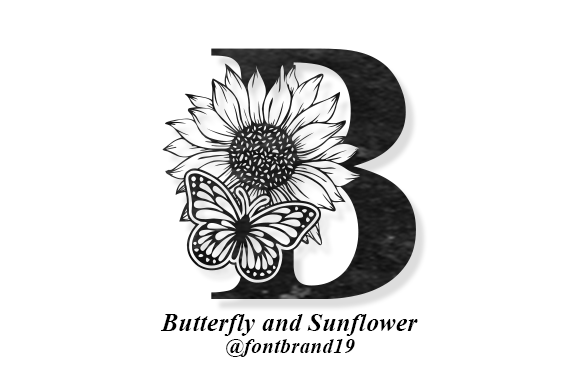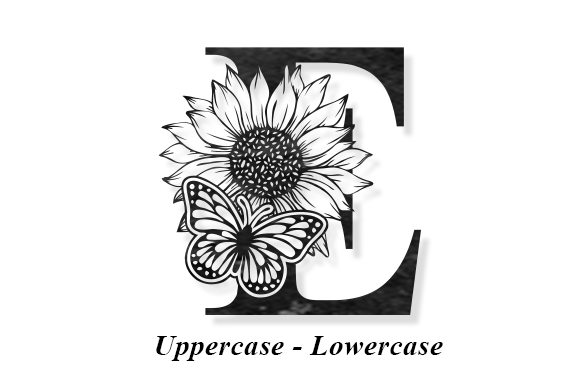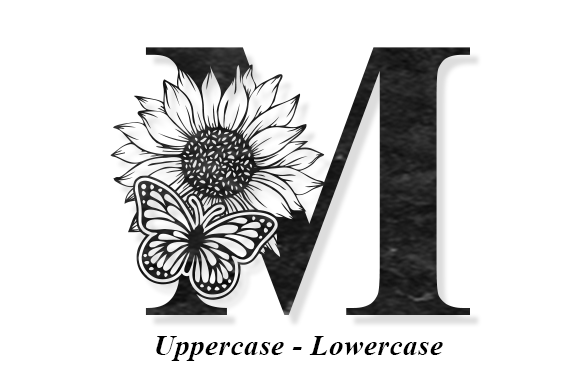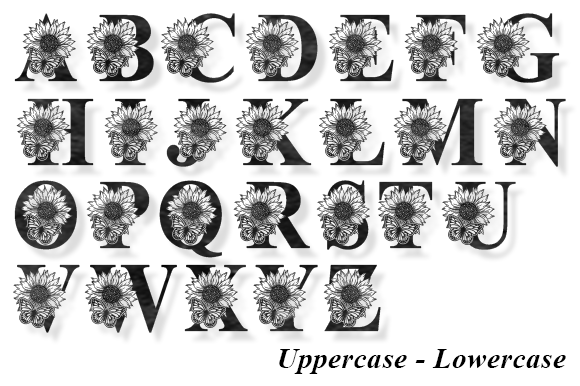
Butterfly and Sunflower Font
About the Butterfly and Sunflower Font
Add a touch of class to your work with the Butterfly and Sunflower Font, a truly exceptional typeface. Butterfly and Sunflower Monogram is an elegant decorative font, featuring lovely ornaments. Fall in love with its authentic feel and use it to create gorgeous wedding invitations, beautiful stationary art, eye-catching social media posts, and cute greeting cards.
Its elegant, decorative style makes it ideal for projects requiring a touch of vintage charm, such as wedding stationery, branding for boutique businesses, or crafting eye-catching logos. It excels in headlines, short text blocks, and design elements where its ornate details can shine. However, its decorative nature makes it unsuitable for body text or lengthy paragraphs; readability would suffer.
For optimal visual impact, pair Butterfly and Sunflower with a clean sans-serif font like Lato or Open Sans for body copy, creating a balanced contrast between decorative and functional typography. Alternatively, a classic serif like Garamond or a more modern geometric sans-serif like Montserrat could provide a sophisticated and harmonious pairing.
The font’s overall personality is best described as romantic and refined, suggesting a brand identity that values artistry, craftsmanship, and a sense of timeless elegance.
Butterfly and Sunflower Font Usage Examples
Butterfly and Sunflower Font Example